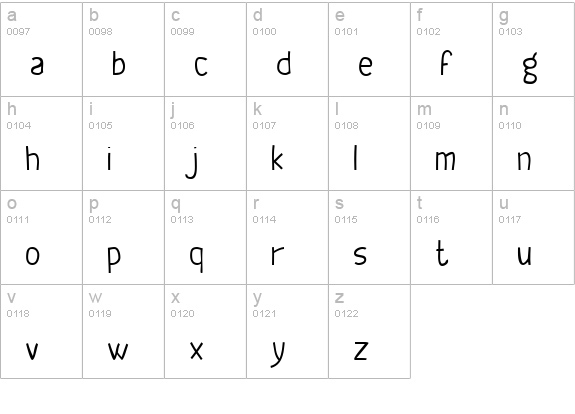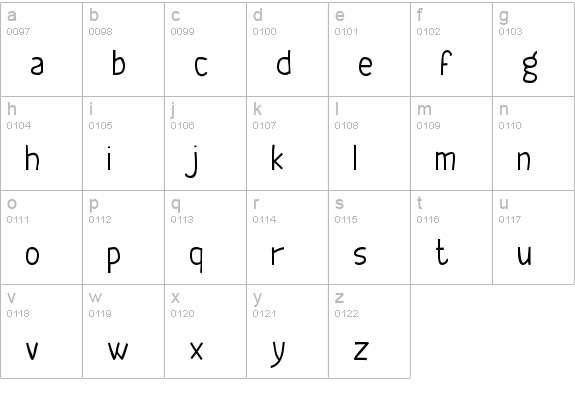
Geeker Thin Font Details
Geeker Thin is a delicate, low-contrast variant in the Geeker typeface family \xE2\x80\x94 well suited to fashion editorial, minimal branding, and high-contrast display.
Geeker Thin font is a sleek and modern typeface that exudes sophistication and elegance. With its thin and graceful lines, this font is perfect for adding a touch of refinement to any design project. Whether you are creating a logo, website, or branding materials, Geeker Thin font will help you achieve a polished and professional look. And the best part is, Geeker Thin font is completely free to download at FontsMarket.com! Enjoy the endless possibilities of this exquisite font without any cost. Embrace the beauty and versatility of Geeker Thin font in your next project and watch it elevate your designs to new heights. Download it now and let your creativity soar with this stunning typeface.